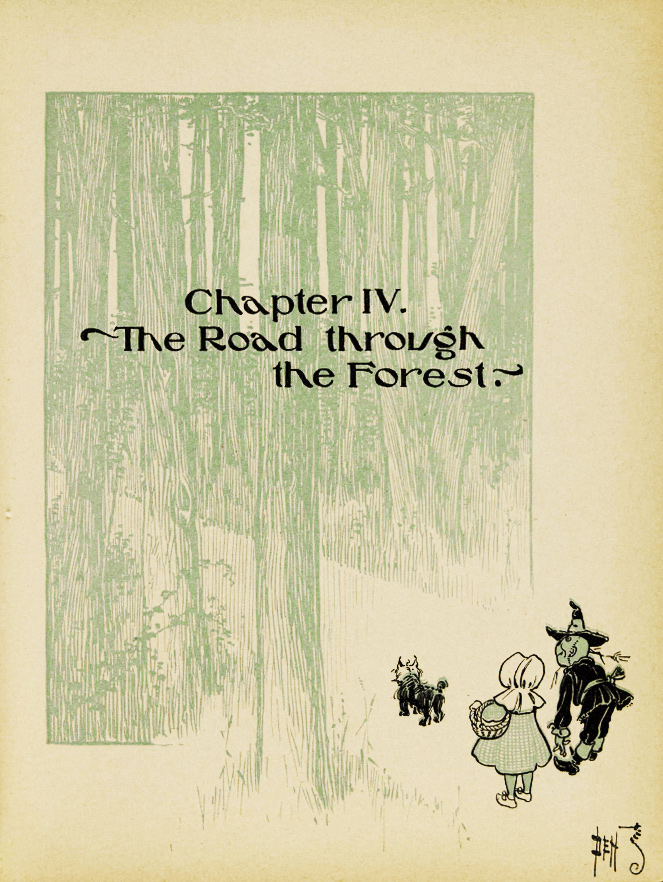
Here's one for the fans of the very first edition of THE WONDERFUL WIZARD OF OZ. Since the lettering was done by hand and there are many versions of each letter, I made three variations of the font you can play with plus a few extras. I named each version after Dorothy's new travel companions. This font is based on the lettering of the 1900 edition of L. Frank Baum's The Wonderful Wizard of Oz. As leyend has it, this typeface was designed by Frederic W. Goudy but was not credited for it. By the way, even thought the illustration is credited under my name, it is not mine. Dafont does that by default. The rightful credits go to W. W. Denslow. |